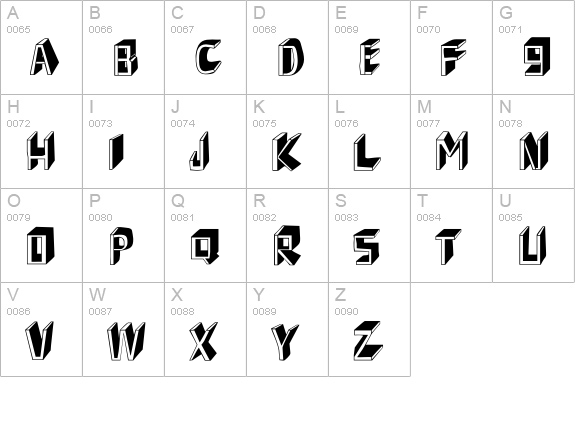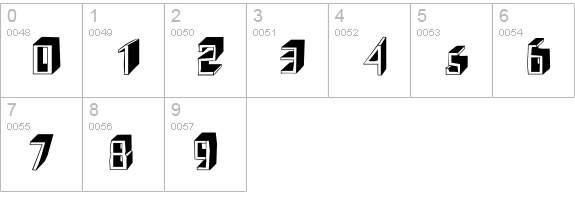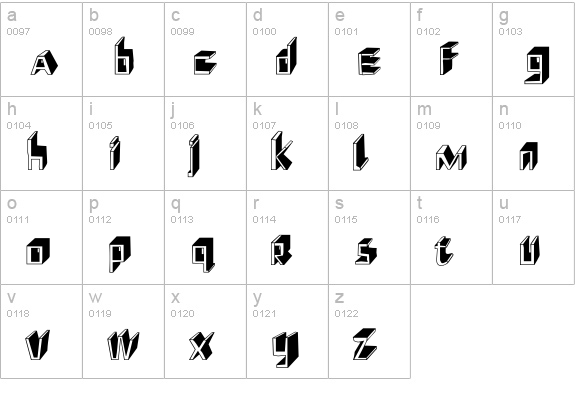
ShoeRepairs-Shadow Font Details
Introducing ShoeRepairs-Shadow, a captivating and eye-catching font that will add a touch of elegance and sophistication to any design project. This dynamic font features a unique shadow effect that creates a sense of depth and dimension, making it stand out from the crowd. ShoeRepairs-Shadow is perfect for a wide range of applications, from branding and advertising to packaging and social media graphics. Its bold and striking appearance will grab attention and leave a lasting impression on your audience. What sets ShoeRepairs-Shadow apart is not just its stunning aesthetics, but also the fact that it is available for free. That's right, you can download this incredible font at no cost from FontsMarket.com. We believe that beautiful design should be accessible to all, and that's why we are delighted to offer this exceptional font as a free resource. Whether you're a professional designer or simply someone looking to enhance their personal projects, ShoeRepairs-Shadow is an invaluable asset. Its versatility allows it to be used in various contexts, effortlessly adapting to different styles and themes. From vintage-inspired designs to modern and minimalist compositions, this font is a versatile addition to your typographic toolkit. Don't miss out on the opportunity to elevate your designs with ShoeRepairs-Shadow. Download it for free today at FontsMarket.com and unlock a world of creative possibilities. Let your imagination run wild and watch as your projects come to life with this visually captivating and elegant font.